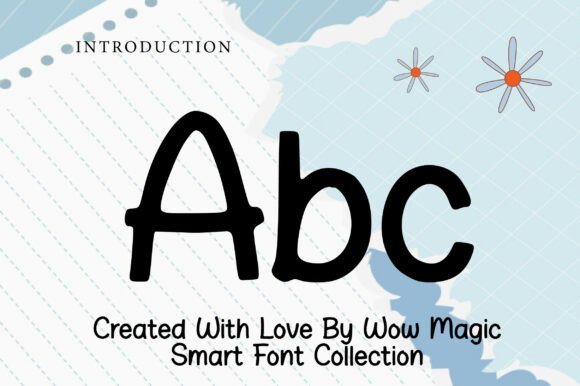
Introduction to Ribbon Display Font
Ribbon Display is a clean and playful handwritten display font designed with smooth strokes, rounded terminals, and a naturally flowing rhythm.
Ribbon Display is perfect for branding, logos, social media graphics, packaging, quotes, invitations, posters, and lifestyle designs that need a warm and stylish touch With its relaxed character and contemporary handwritten look, Ribbon Display brings a cheerful, creative, and effortless vibe to both digital and print typography.
Key Features of Ribbon Display Font